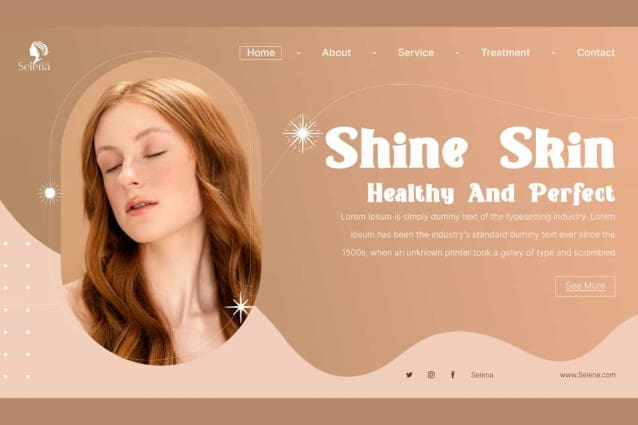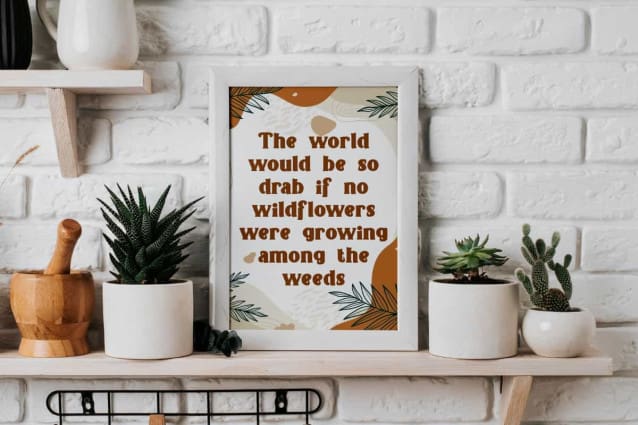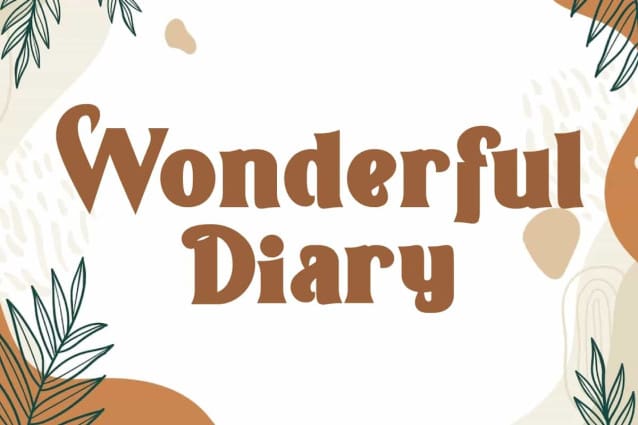
Wonderful Diary Font
Wonderful Diary Font is an adorable serif display font inspired from vintage posters. This font has bold letter characters that make it easy to read, but still doesn’t reduce its charm to make your design perfect. It would be good for brand logo, headline, invitation, magazine cover, poster, product packaging, screen print, signage, stationery, sticker, website, and more!
Wonderful Diary Font includes full set for Uppercase and Lowercase Basic Characters, Numbers, Punctuation and Symbols. This stylish font carefully crafted to create the perfect font so that it will be suitable for advertisement, beauty product, boutique, cafeteria, crafts, fashion, photography, skincare, social media posts, spa, etc.